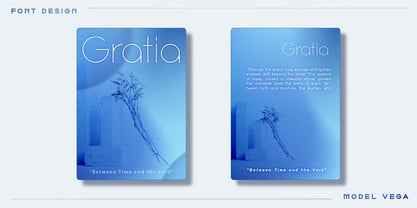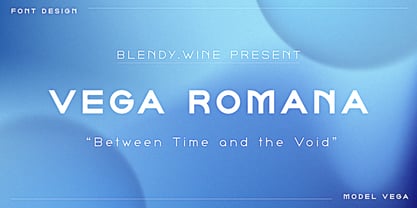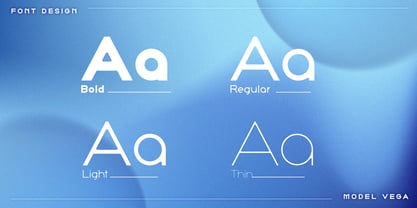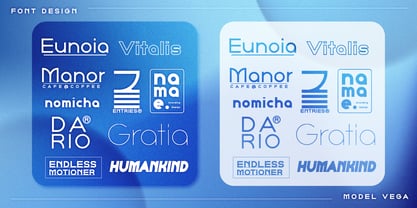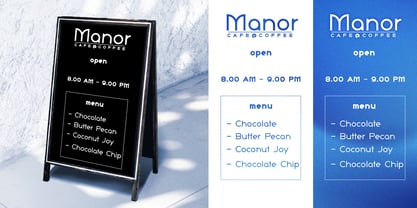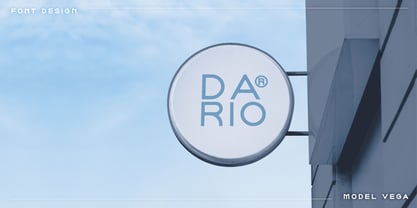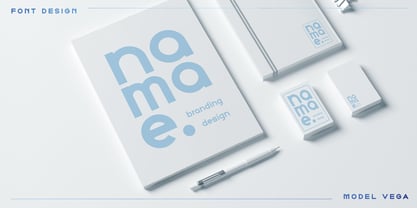
Vega Romana
by Blendy wine
The Vega Romana Font Family was designed by Aekkaluk Sukphed and published by Blendy wine. Vega Romana contains 4 styles and family package options. More about this family
"VegaRomana is more than typography—it is an experience, a journey across time and imagination. Each letter carries echoes of ancient wisdom while embracing the vast unknown. Designed for creators who seek to bridge heritage with the cosmos, it transforms words into timeless voyages. Whether crafting narratives, branding visions, or shaping digital worlds, VegaRomana amplifies expression, giving every message a presence that transcends the ordinary."
Designers: Aekkaluk Sukphed
Foundry: Blendy wine